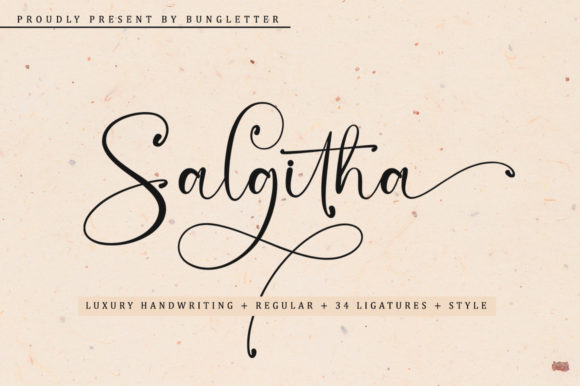
Immerse yourself in the world of Salgitha Font, a modern luxury script that exudes elegance and sophistication. Each character dances across the page with grace, creating a harmonious visual symphony that captivates the senses. Discover the beauty of this decorative script, inspired by classic signatures and infused with a touch of modernity.
Salgitha Font is a visual masterpiece, meticulously crafted to bring a touch of luxury to your designs. Its clean, feminine lines evoke a sense of sensuality and glamour, while its simple, easy-to-read style ensures clear and striking communication.
With Salgitha Font, you have the power to transform ordinary text into captivating works of art. Its PUA-encoded format grants you access to a world of stunning glyphs and ligatures, empowering you to unleash your creativity and add a touch of magic to your designs.
Unleash the allure of Salgitha Font, and watch as your words take on a life of their own. Experience the joy of creating wedding menus that radiate romance and elegance, invitations that exude sophistication, and logos that leave a lasting impression.
Salgitha Font is more than just a collection of letters; it's an expression of your unique style and an invitation for others to experience the beauty of your creations. Embrace the allure of Salgitha Font and embark on a creative journey that will leave you spellbound.